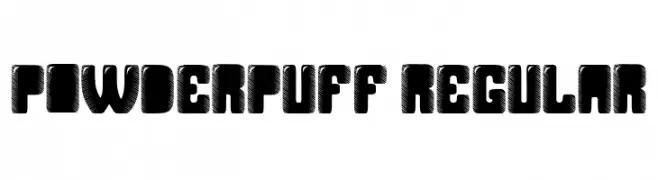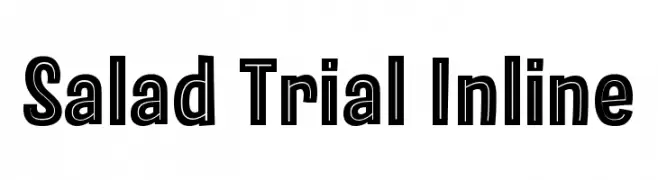
Bold, angular font with a rugged, industrial style.
A playful, bold, and bubbly font with rounded edges and a whimsical style.
A bold, playful font with a hand-drawn, whimsical style and uneven strokes.
A bold, playful font with a 3D effect created by diagonal hatching.
A bold, rounded font with a playful and friendly style.
A playful, handwritten font with rounded, smooth letterforms.
A bold, playful font with a whimsical and energetic style.
A bold, playful font with an inline style that adds depth and character.
A bold, playful handwritten font with unique curls and loops.
A bold, playful font with thick strokes and rounded edges.